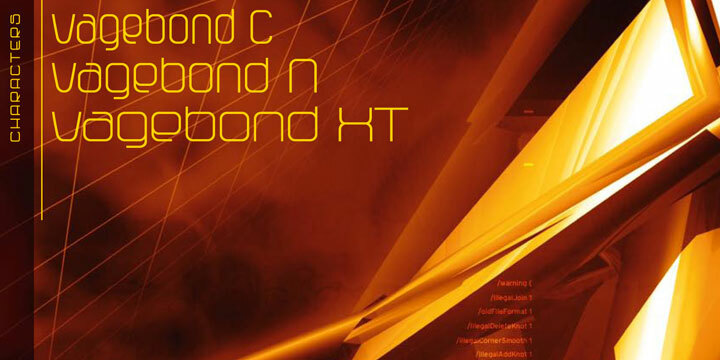
Vagebond C Light by Rene Verkaart is a free light geometric sans serif with tall proportions and exceptionally fine strokes. Rounded arches and open joins give the lettering an airy, architectural look. Stroke widths remain nearly uniform, with tight curves adding a subtle futuristic edge.
Packaging is a strong setting for its clean linear drawing, especially on cosmetics. It also suits fashion posters and cultural event graphics. In branding, the narrow silhouettes can become a recognizable wordmark for minimalist labels.